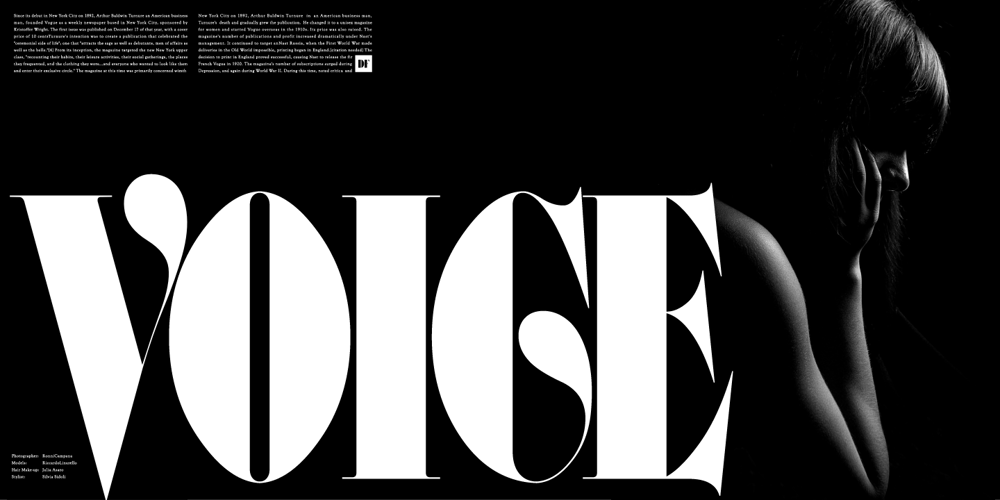
Bern Bern Font Family was designed by Shin Oka and published by Daylight Fonts. Bern Bern contains 1 styles and family package options. This font can be very fashionable, feminine and cute depending on how you use it.